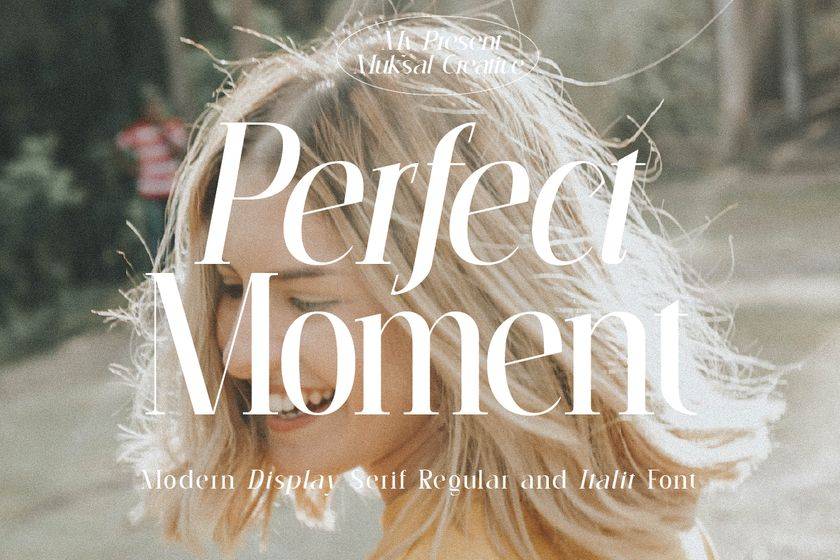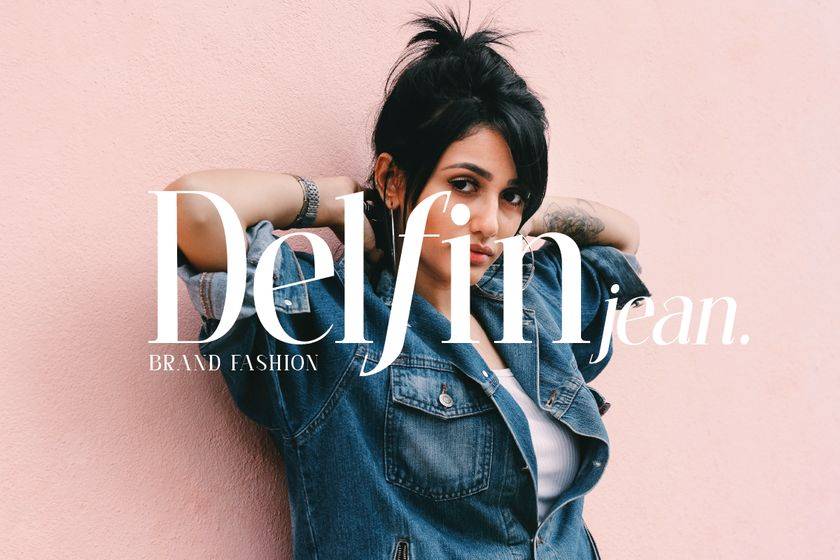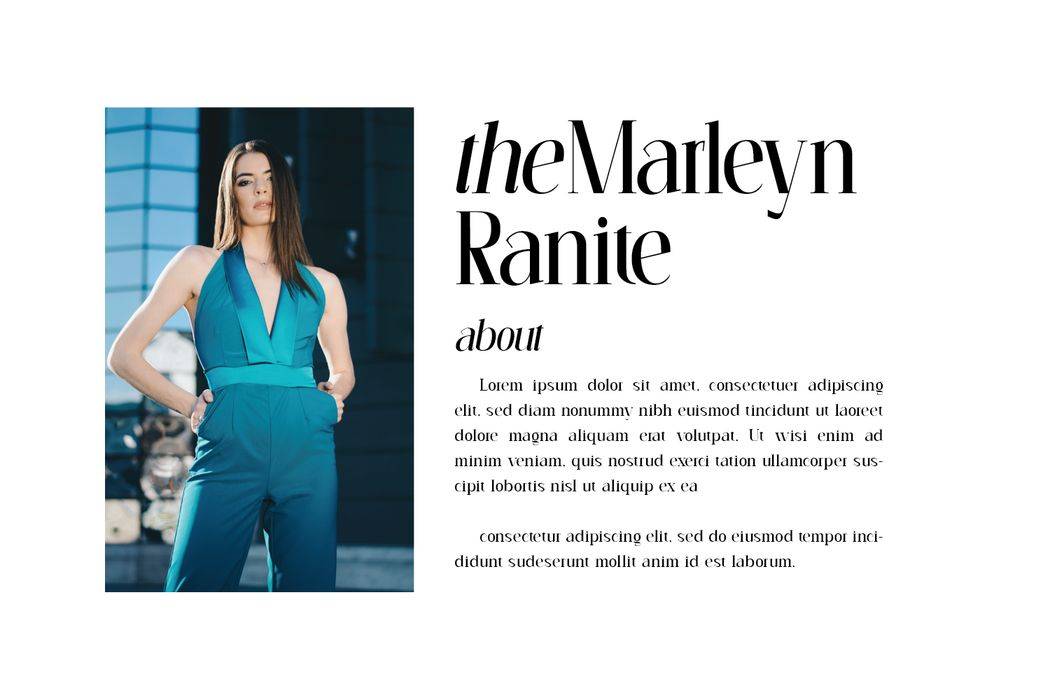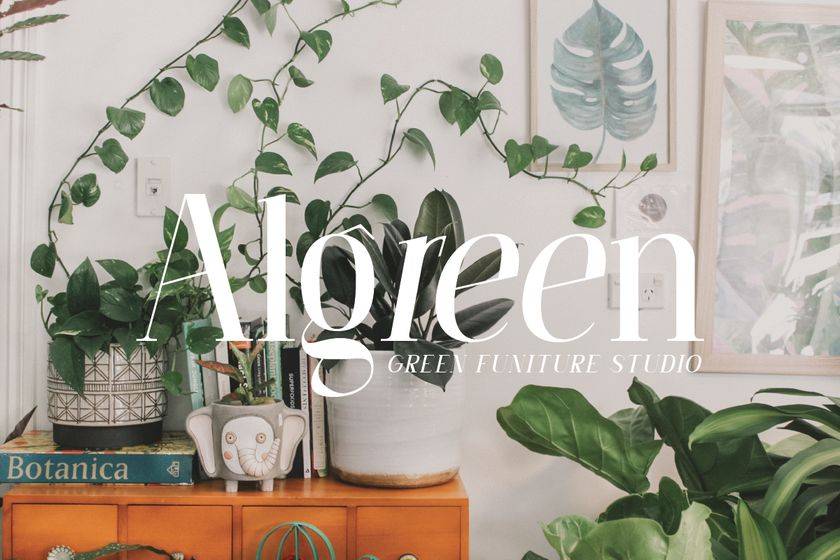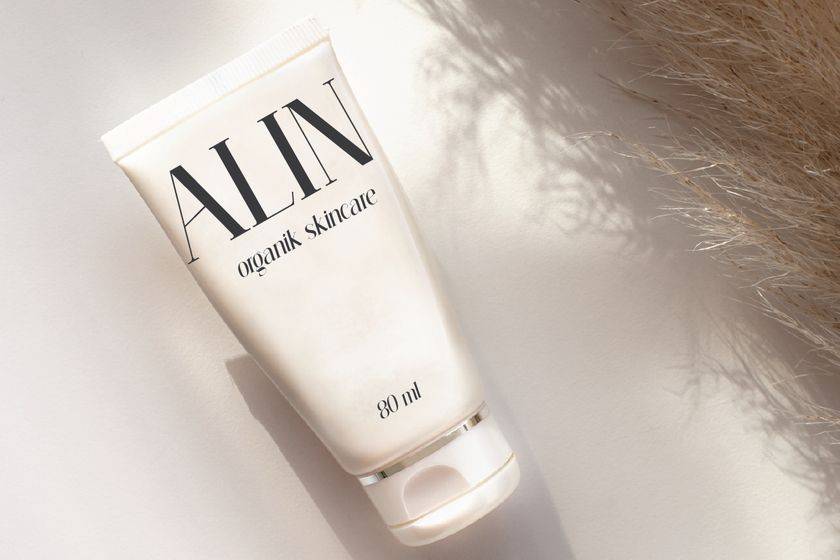
Perfect Moment is an elegant serif typeface with a refined, high-contrast design and a graceful italic posture that exudes sophistication. Its slender serifs, moderate x-height, and classic letterforms make it perfect for luxury branding, editorial headlines, and stylish packaging where a timeless, polished look is desired. This font combines tradition with a delicate modern flair, ideal for creating a chic, upscale atmosphere.
Perfect Moment Font